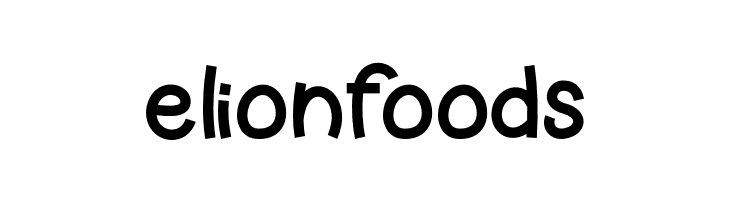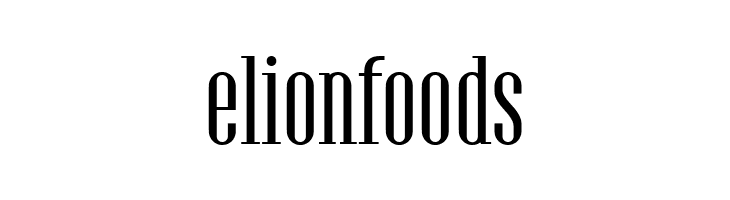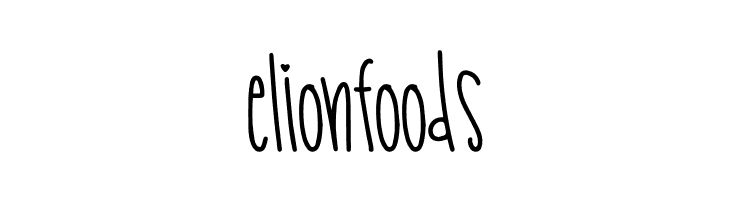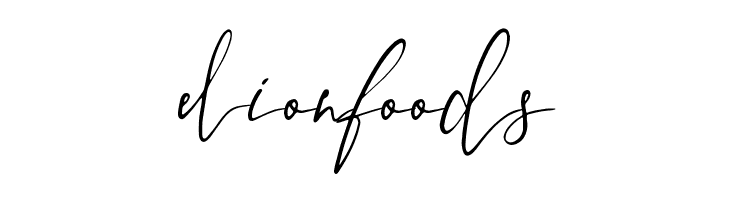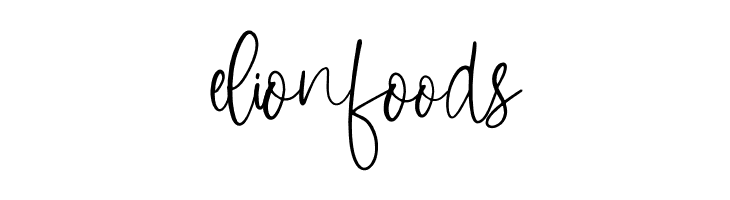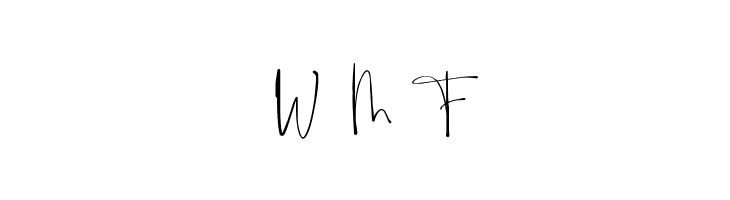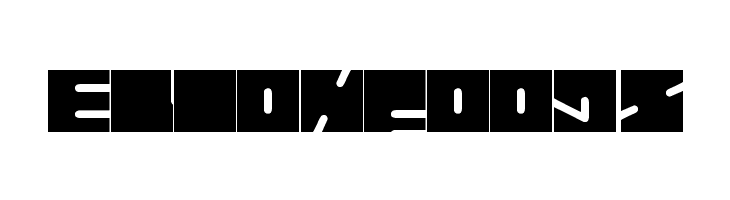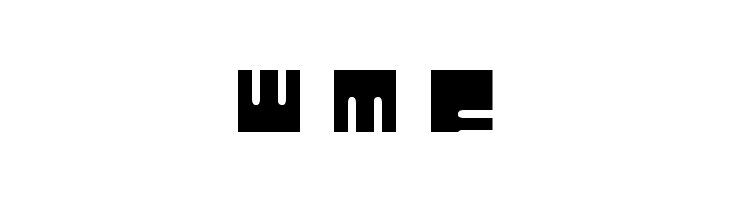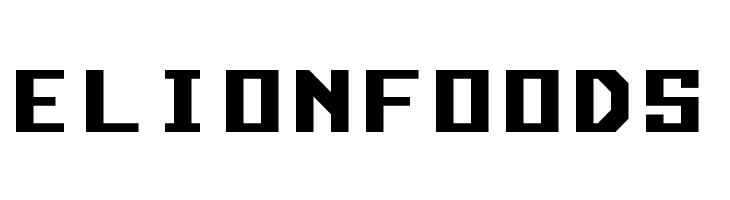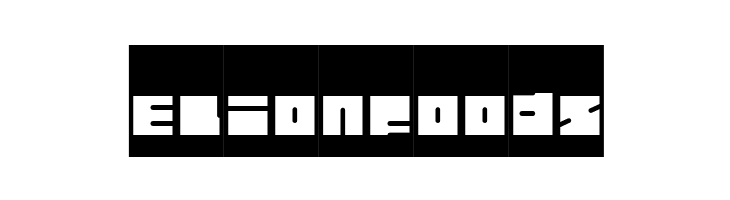
• Falcon Patrol Regular
( Omegaville - B.J. Winzer )
A bold, pixelated font inspired by retro arcade games and digital displays.
• FFMt-Bk
• FinestRegular
A bold, playful handwritten font with fluid strokes and a dynamic slant.
• Forgotten
A bold, angular font with a geometric and modern style.
• Franchise Bold
A bold, modern font with strong lines and a condensed width.
• Garfield
A bold, playful font with rounded, cartoonish letters.
• Good Pawoo Display
( Fonts by Attype Studio )
A playful, paw-themed display font with bold, rounded characters.
• Hamerslag DEMO
A tall, narrow font with strong vertical emphasis and uniform strokes.
• Hapshash
A bold, dripping font with a playful, liquid-like appearance.
• Hello Alpha Regular
A modern, geometric font with angular, consistent lines.
• Hello Brownie
A playful, hand-drawn font with tall, narrow letters and a whimsical style.
• HelloAlpha
A geometric, modern font with sharp angles and a futuristic style.
• HIGHWAY PATROL
A bold, geometric font with a futuristic, digital aesthetic.
• HIGHWAY PATROL
A bold, geometric font with a digital, futuristic style.
• Highway Patrol-Inverse
A bold, geometric font with a futuristic, industrial style.
• Historia
A dynamic handwritten font with fluid, expressive strokes.
• Hodor Regular